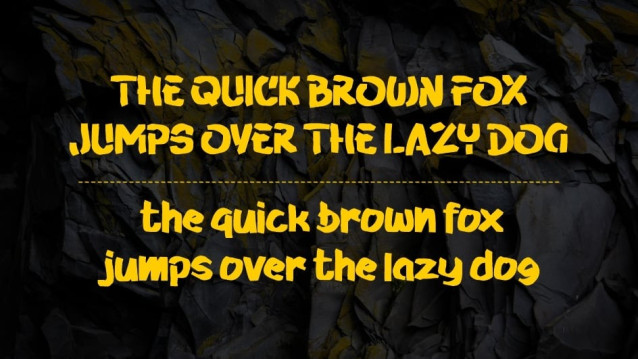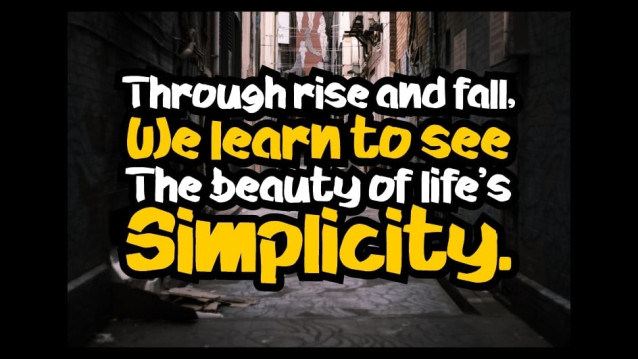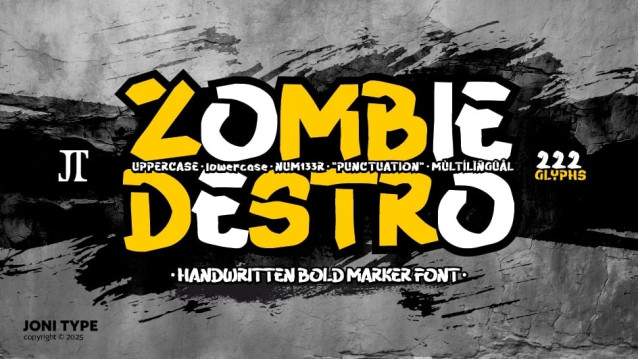
Zombie Destro Font
Zombie Destro Font is a fearless handwritten bold marker font that brings raw energy and rebellious vibes to your designs. With its sharp edges, bold strokes, and street-style attitude, this font is perfect for posters, album covers, urban branding, social media graphics, and eye-catching titles.
It comes with uppercase, lowercase, numbers, punctuation, and multilingual support, making it versatile for both personal and commercial projects. Whether you’re crafting grunge artwork, gaming visuals, or edgy merchandise, Zombie Destro will make your words roar with power.